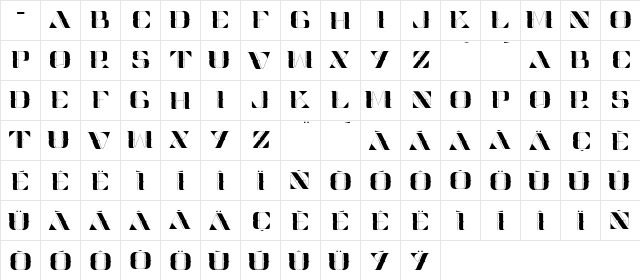
ValkDisplay Regular
| Designer | Victor Tognollo |
Design Context for ValkDisplay Typeface
ValkDisplay brings ornamental detail and strong personality to headlines and identities, where visual impact matters more than quiet functionality.
Font Pairing: Pair with a clean neutral sans-serif for body copy to let ValkDisplay's character lead without overwhelming the composition.
Pro Tip: Use ValkDisplay exclusively at display sizes — it was designed to be seen, not read at length. Let a neutral companion handle body copy.